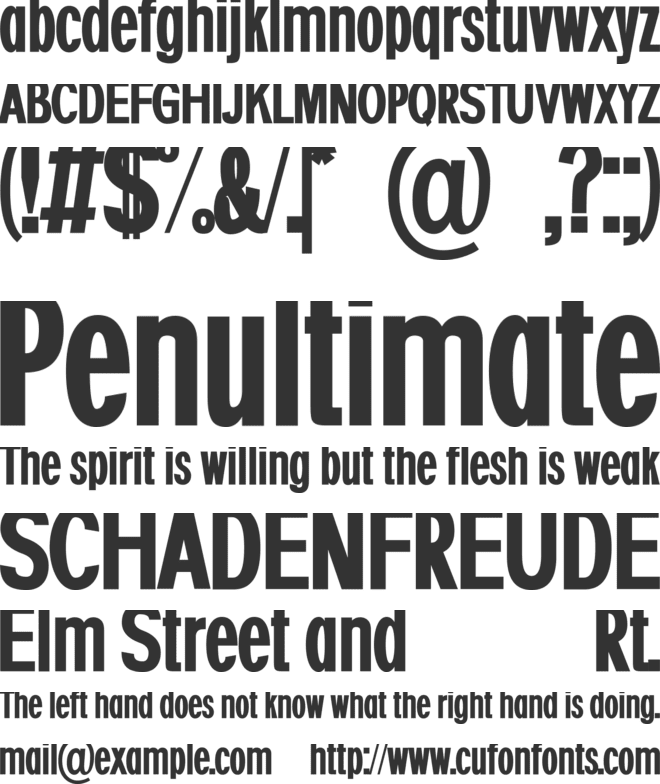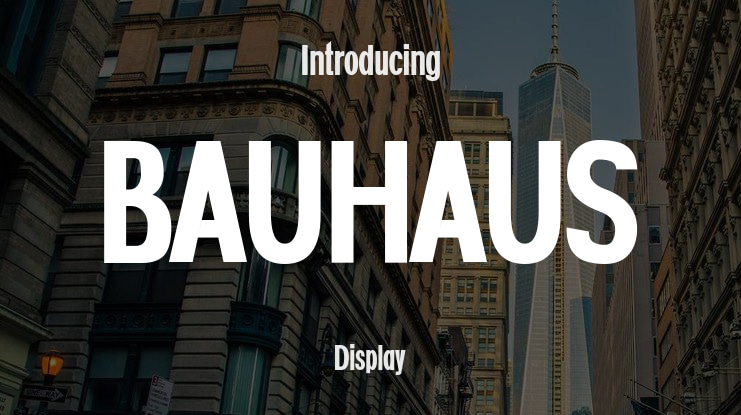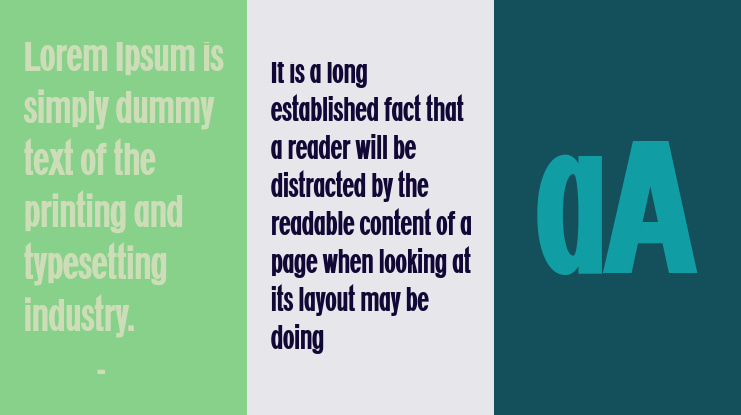
BAUHAUS Font Family
Bauhaus, is a minimal, condensed grotesque. it is a geometric sans serif with multilingual support—ideal for graphic design, editorial layouts, and modern branding.